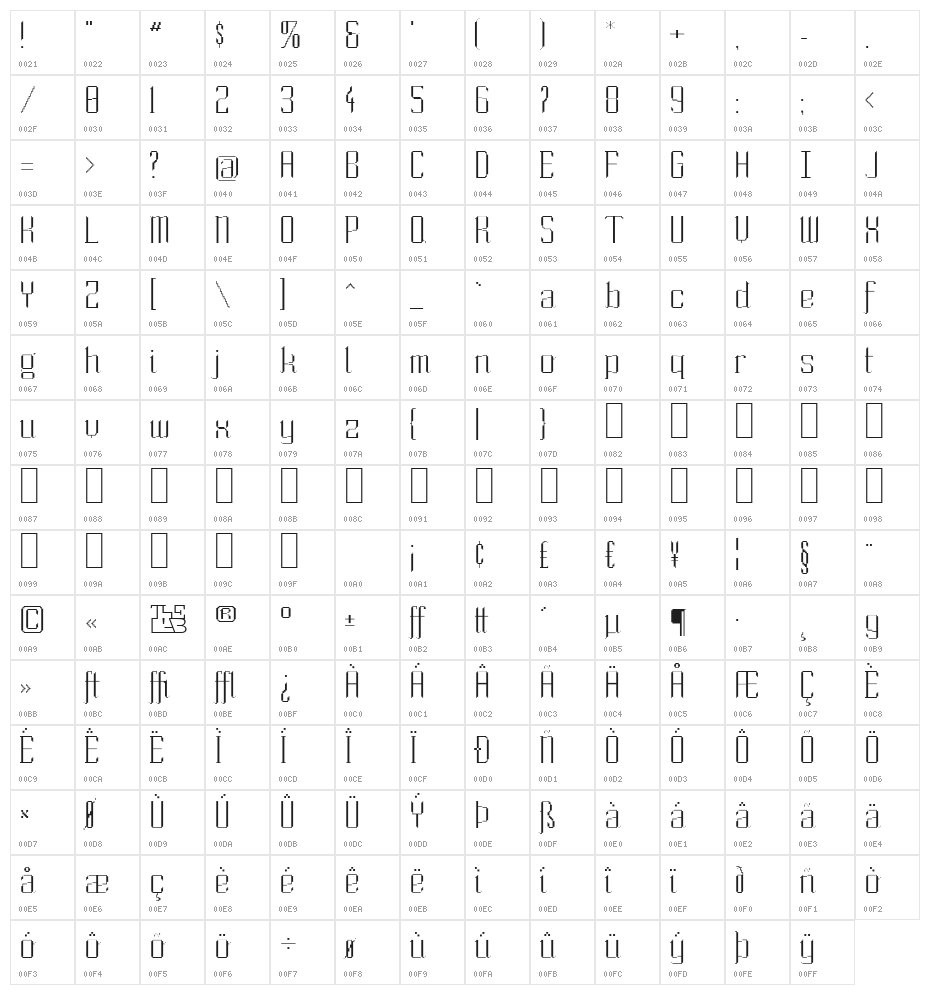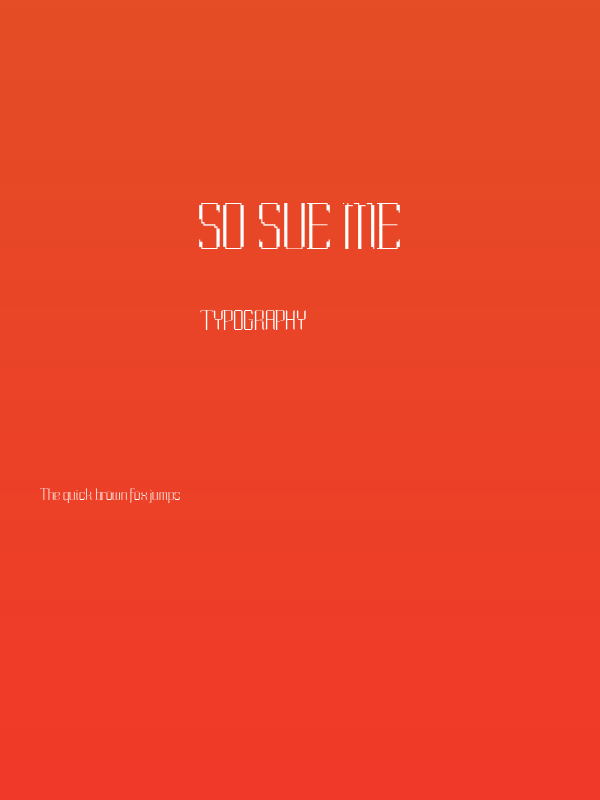
So Sue Me Font
So Sue Me Description
This font features a unique, geometric design with a distinct pixelated appearance. The characters are composed of straight lines and right angles, giving it a digital, retro feel reminiscent of early computer graphics. The uppercase and lowercase letters maintain a consistent height, contributing to a uniform look across the text. The numbers and special characters follow the same stylistic approach, ensuring cohesion throughout. This font's minimalistic and structured design makes it stand out, offering a modern twist on classic pixel art aesthetics.
| Use Case | Logos, Headlines, Digital Art |
| Proposed Projects | Ideal for video game design, tech-themed posters, digital art projects, and retro-style branding. |